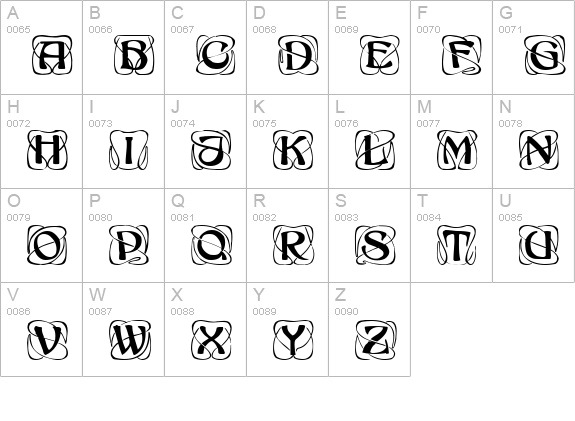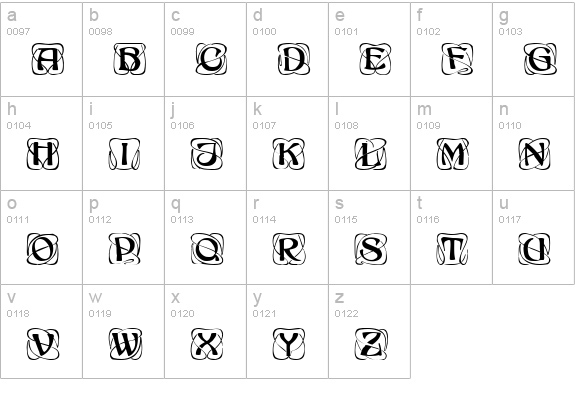
Lavendel Font Details
Lavendel font is a beautifully crafted typeface that exudes elegance and sophistication. Its delicate curves and stylish serifs make it perfect for adding a touch of refinement to any design project. Whether you're working on a wedding invitation, a branding project, or a poster design, Lavendel font will elevate your work to the next level. This versatile font comes in a variety of weights and styles, making it suitable for a wide range of design applications. From bold headlines to elegant body text, Lavendel font has you covered. Its timeless design ensures that your work will always look polished and professional. And the best part? Lavendel font is completely free to download at FontsMarket.com. That's right, you can add this stunning typeface to your font library at no cost, giving you unlimited creative possibilities without breaking the bank. So why wait? Download Lavendel font today and see the difference it can make in your designs.